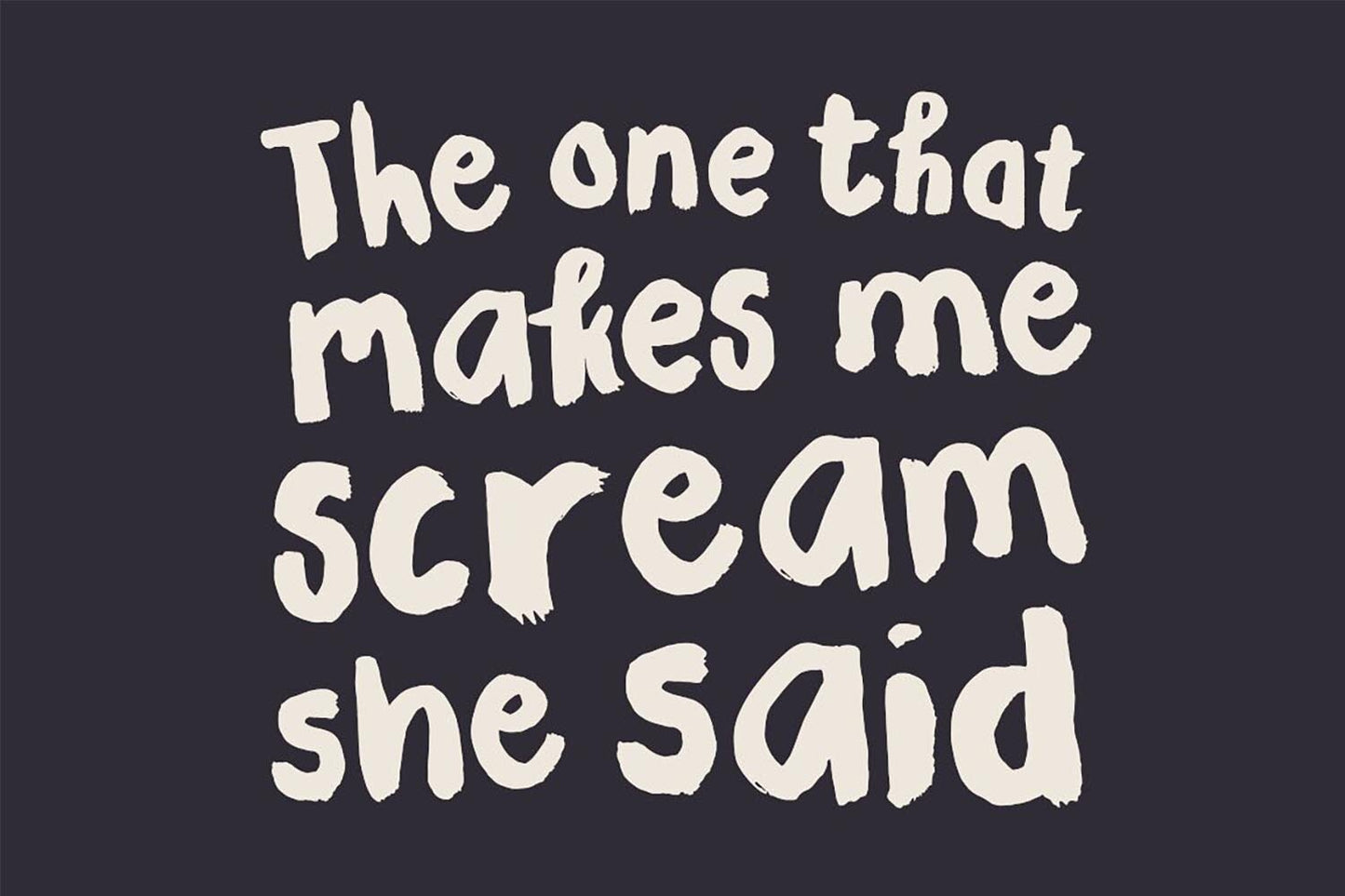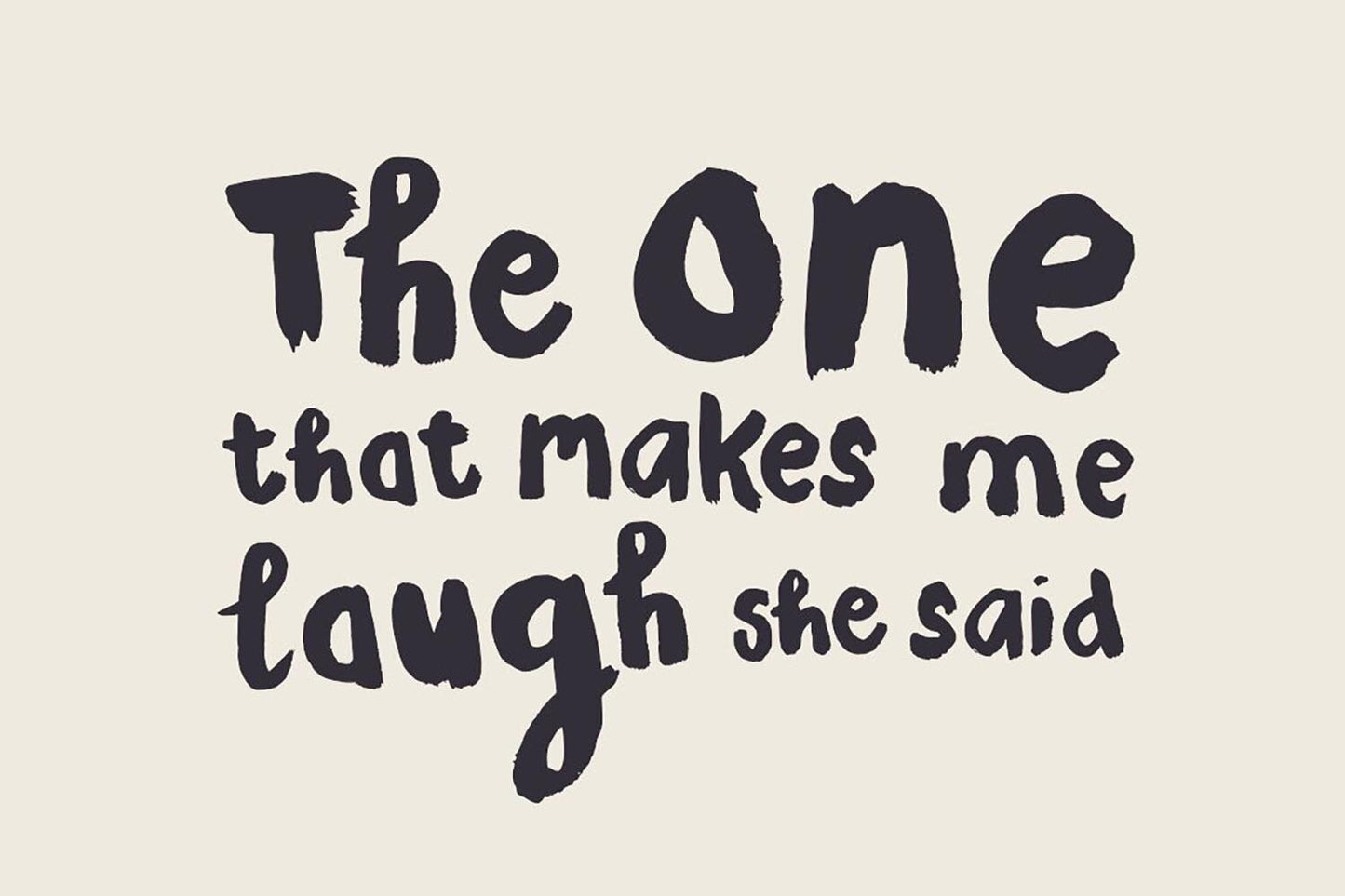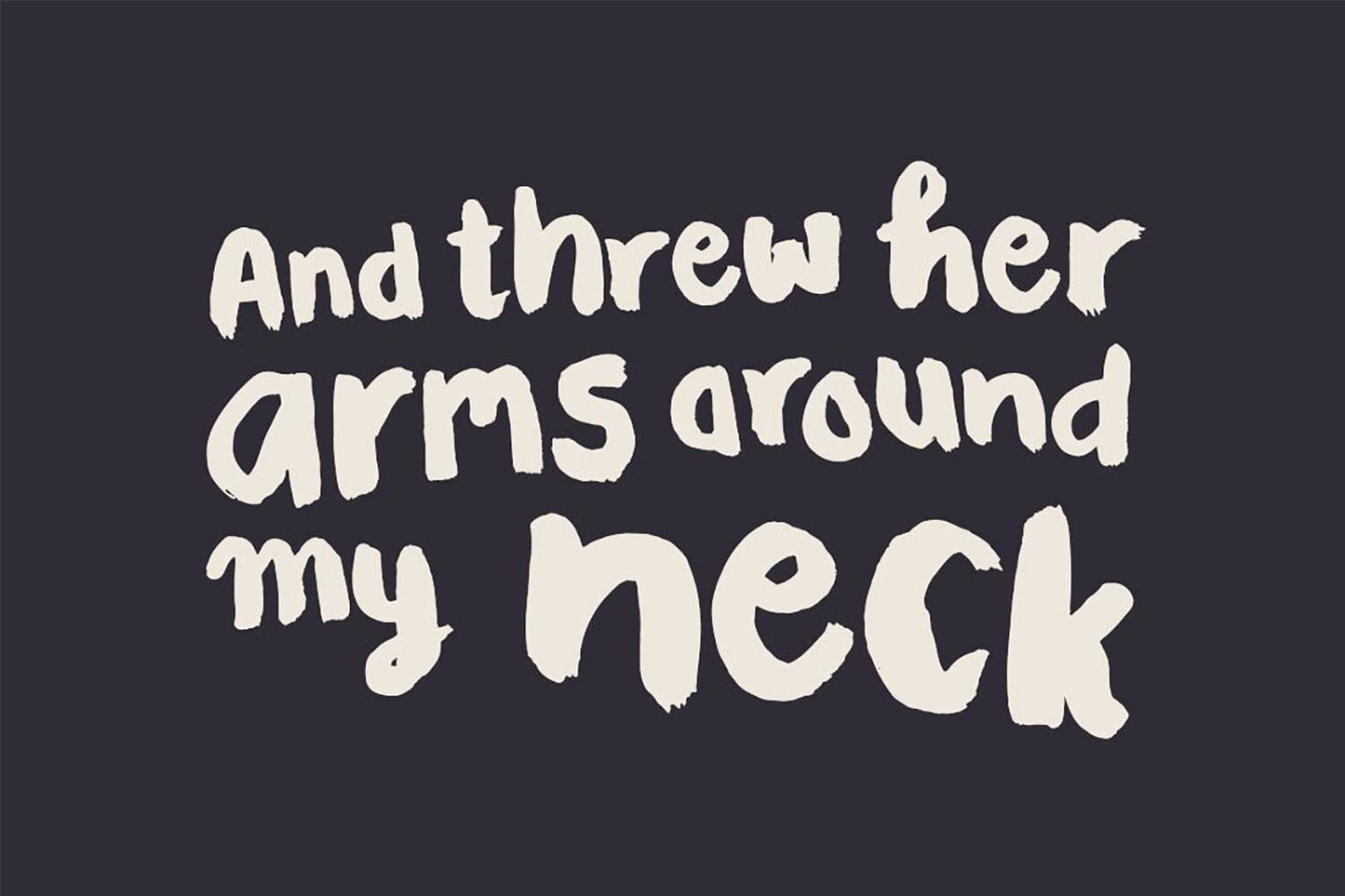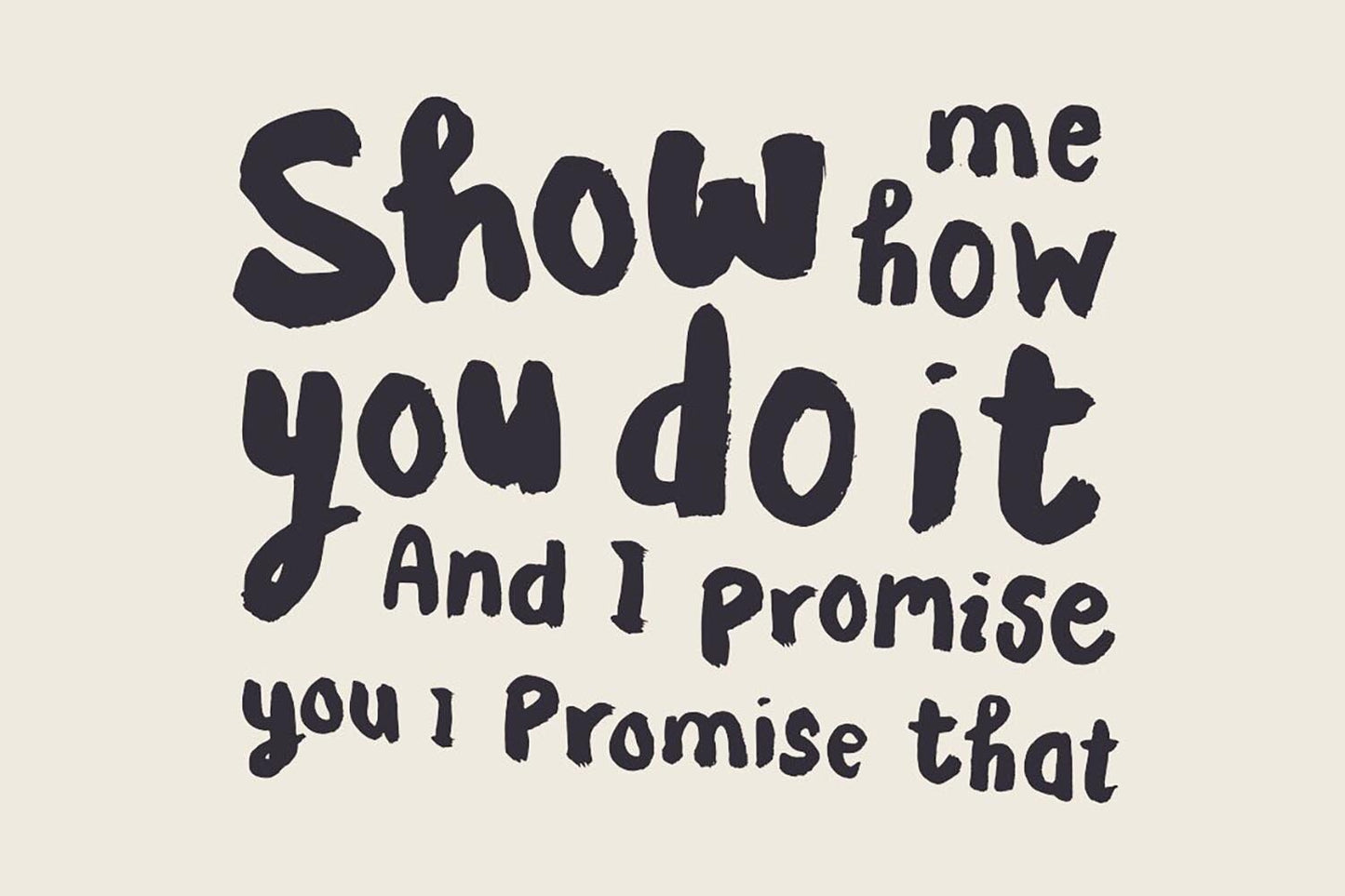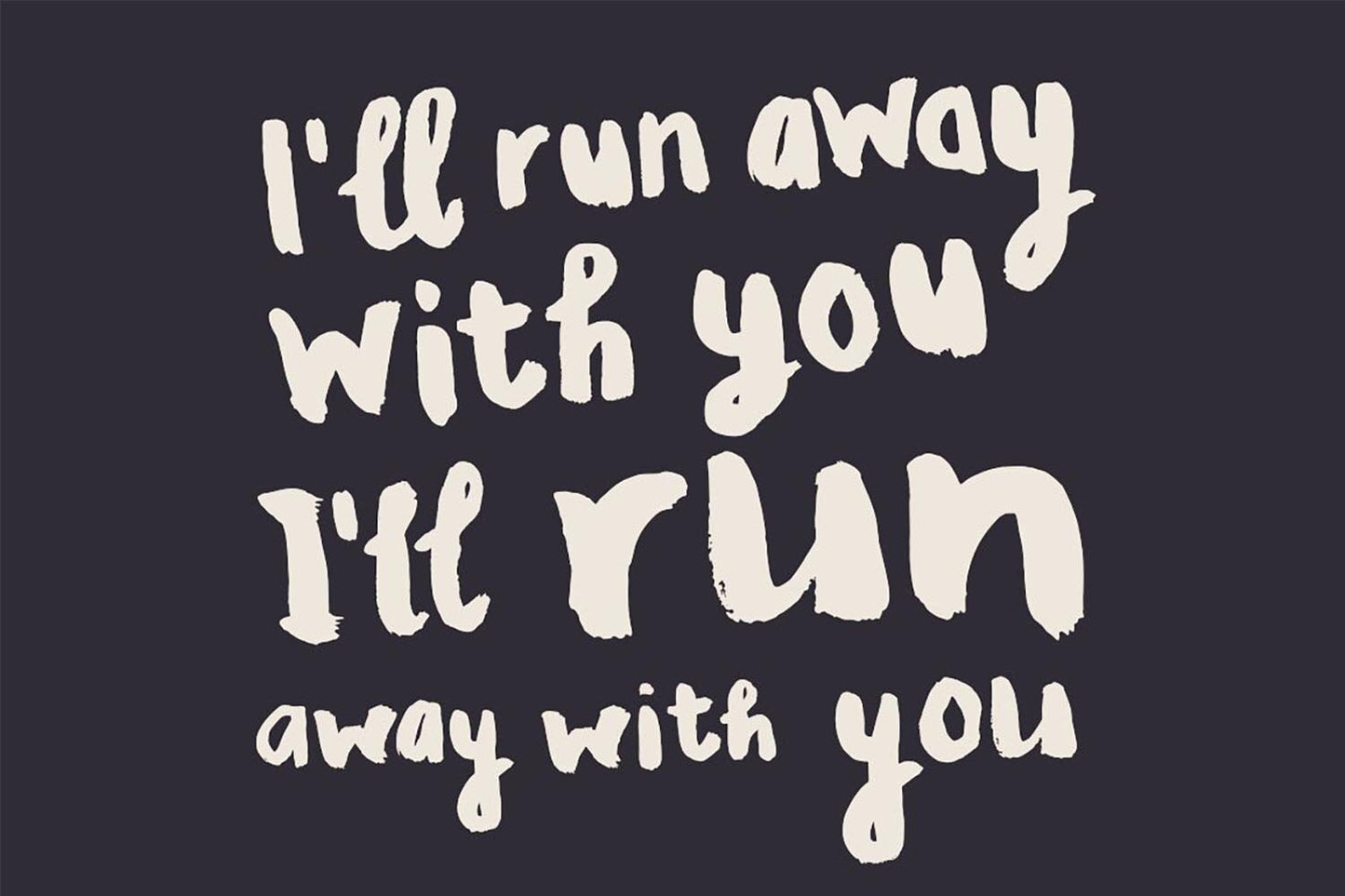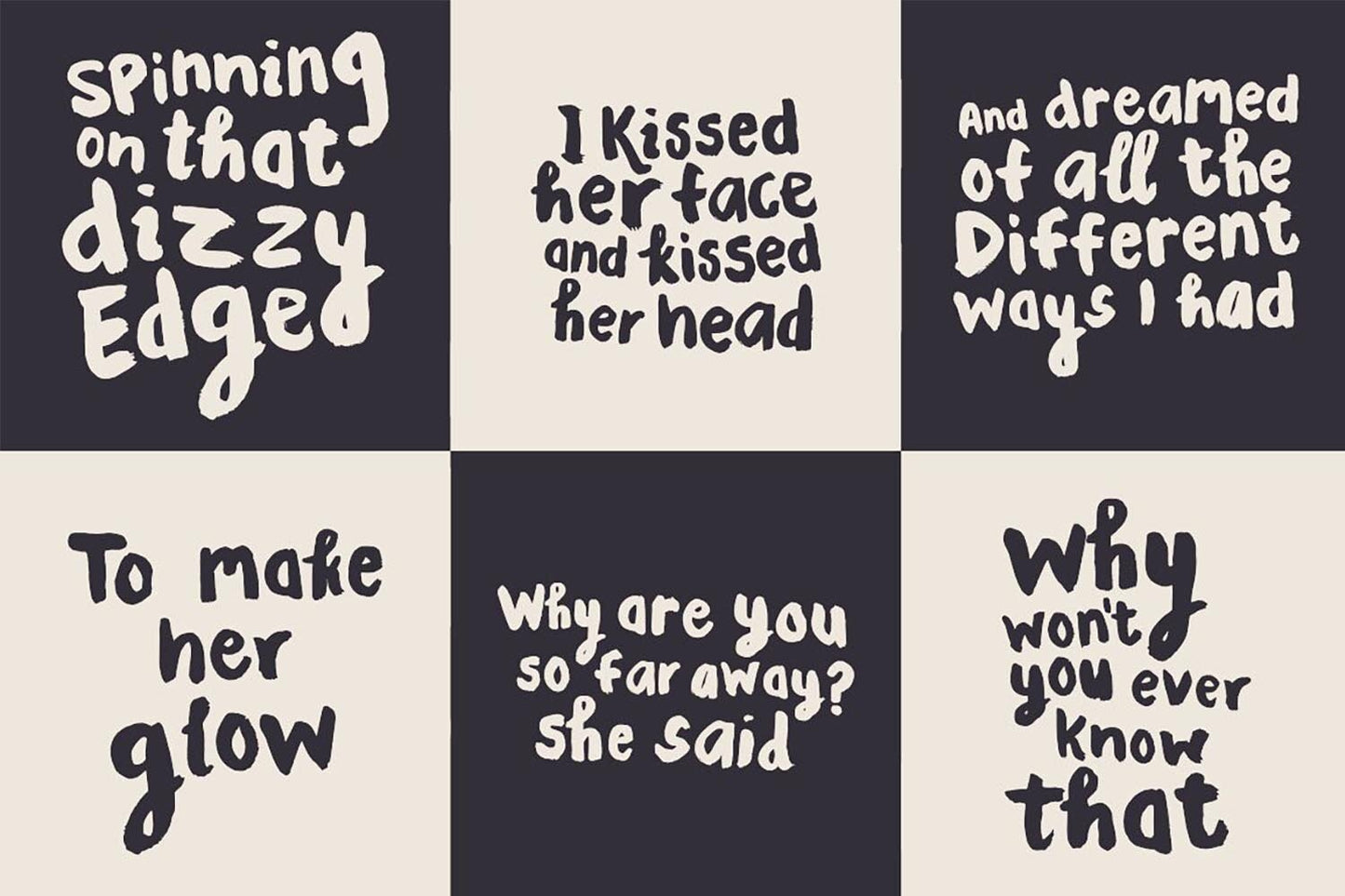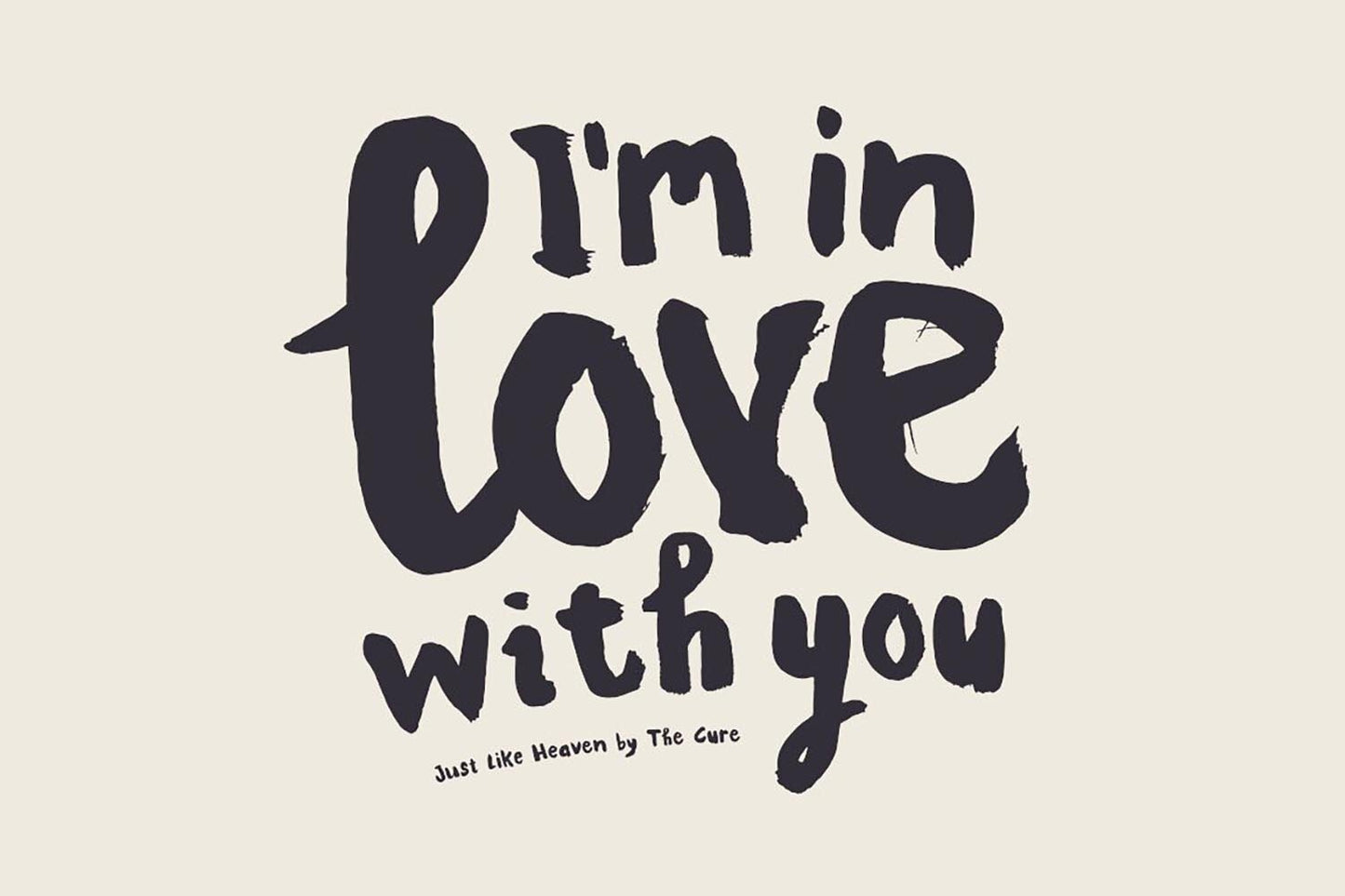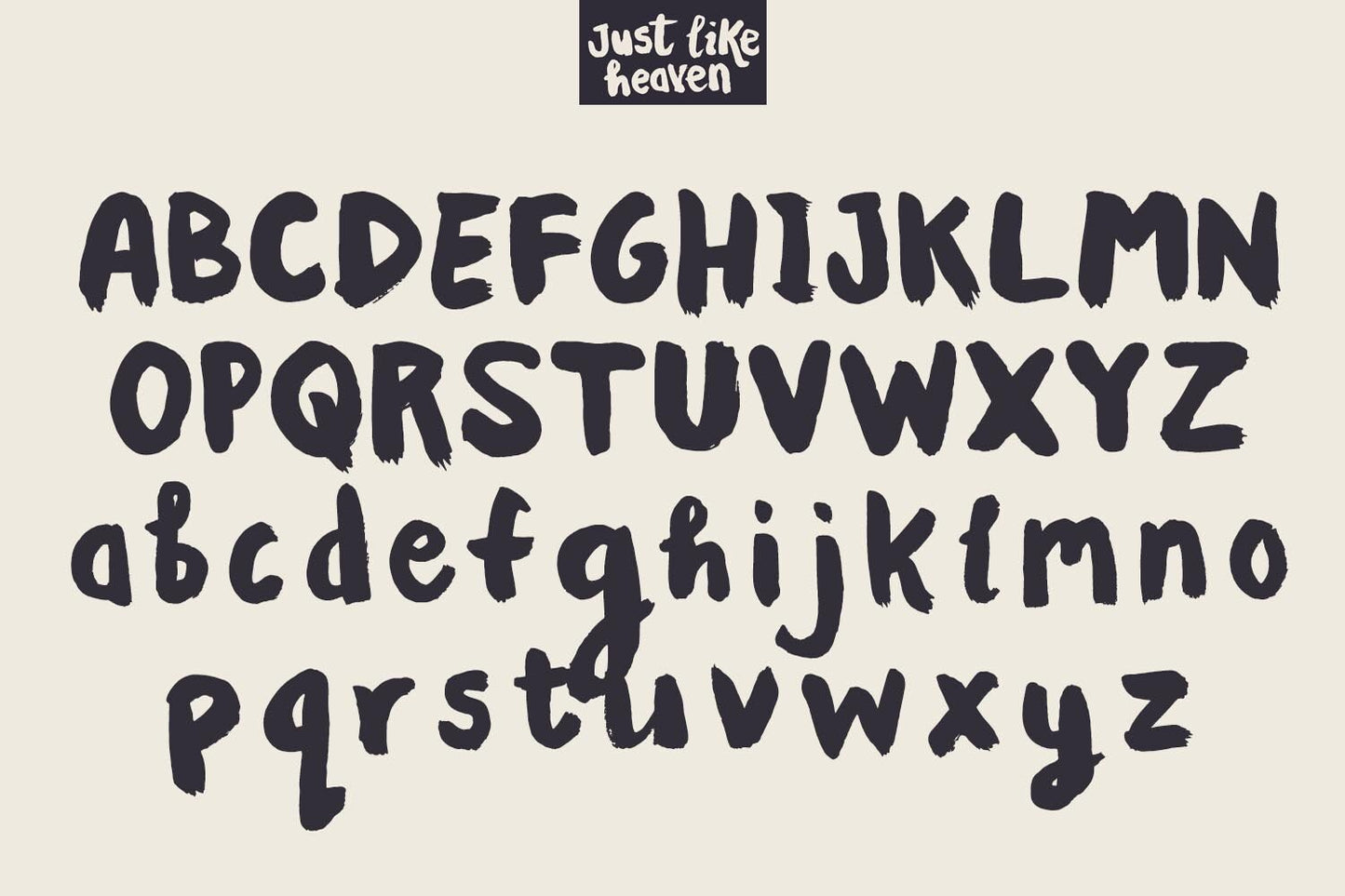
Just like heaven font
About Just like heaven font
This isn’t it. My original Just Like Heaven font is a handmade display face inspired by The Cure. Same name. Completely different font.
Just Like Heaven Font is a bold, handmade brush display typeface created for designers who prefer character over perfection. Its irregular letterforms, changing widths and playful proportions give posters, branding and packaging a distinctly English eccentricity.
Just Like Heaven doesn’t play by the rules. Each letter has an expressive, hand-painted appearance, helping headlines and display text feel spontaneous rather than overly polished or mechanical.
What makes Just Like Heaven Font different?
Varying letter widths, heights and shapes give this brush font its energetic, offbeat personality. It’s deliberately imperfect, making it ideal for creative projects that need something more distinctive than a conventional script or brush typeface.
A brush font inspired by The Cure
Just Like Heaven Font takes its name from The Cure’s timeless song of the same name. It was released in 1987, when the band’s music was becoming part of the soundtrack to my art-school years.
That influence can be seen in the font’s combination of dreamy elegance, artistic energy and slightly rebellious character.
Four OpenType alternates for every letter
Just Like Heaven Font includes four alternate versions of every uppercase and lowercase letter. Its OpenType features automatically cycle through these alternatives, helping repeated letters appear more natural and giving words a hand-rendered, unpredictable quality.
Where to use Just Like Heaven Font
This handmade display font works particularly well for:
- Posters and gig artwork
- Album covers and music graphics
- Editorial headlines
- Logos and expressive branding
- Packaging and labels
- Social-media graphics
- Apparel and merchandise designs
If Just Like Heaven Font were a celebrity
It would be Robert Smith from The Cure: artistically expressive, dreamily elegant and just eccentric enough to remain completely unforgettable.
Choose Just Like Heaven Font when your design needs a handmade brush typeface with movement, personality and plenty of beautifully controlled chaos.